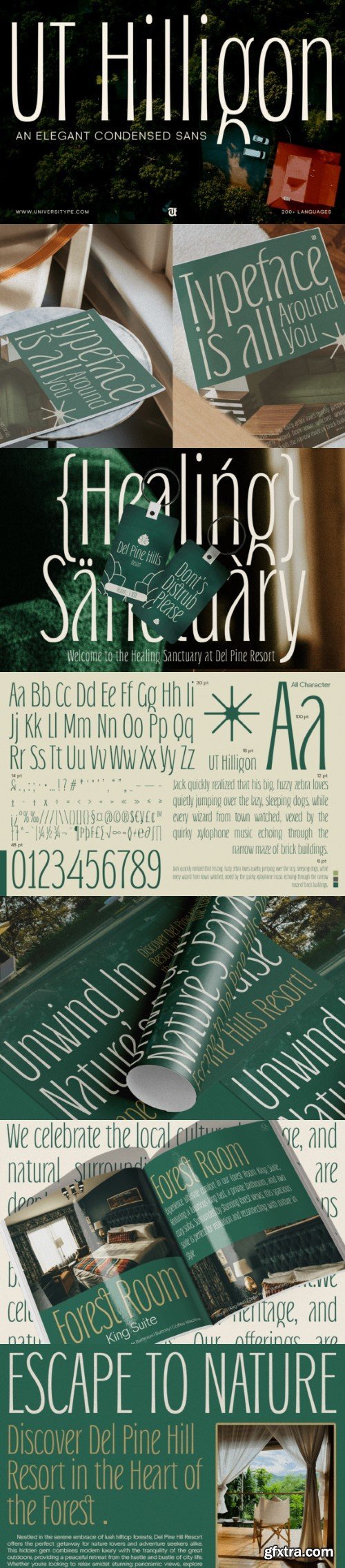
Introducing UT Hilligon – the font that interweaves the untouched allure of nature into a luxurious aesthetic. This typeface, inspired by the detailed patterns of pine cones, ingeniously encapsulates the warmth and complexity of the wilderness, presenting a novel take on design elements. It is artfully crafted to captivate, effortlessly bridging the gap between contemporary dynamism and the grace of the great outdoors. Ideal for esteemed creators, UT Hilligon has the power to transform every creative pursuit into an enthralling narrative.